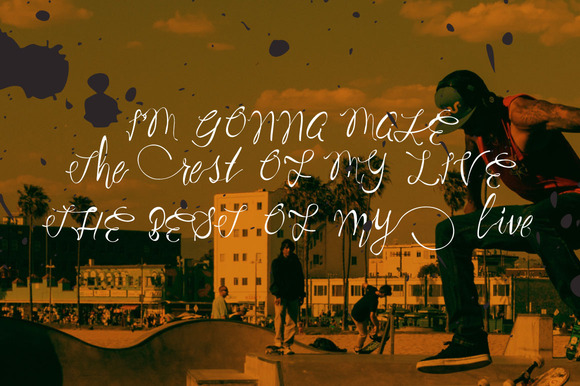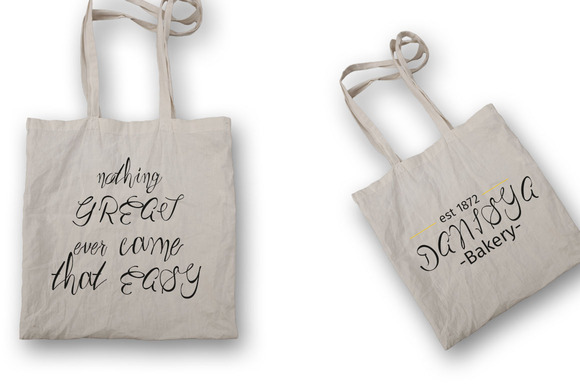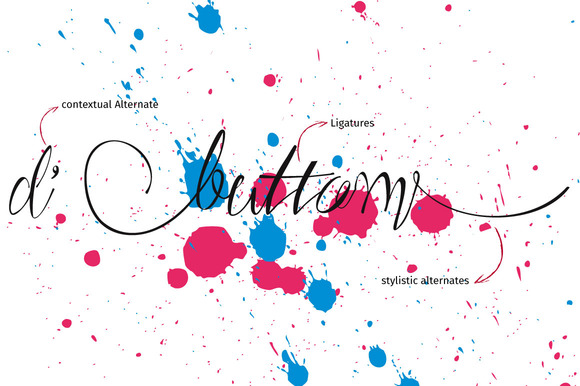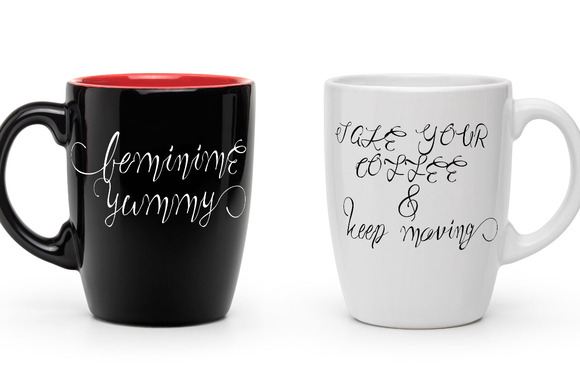
Introduction to Feminisme Font
‘Feminisme’ is a new & modern calligraphy typeface with an elegant touch.
‘Feminisme’ is a new & modern calligraphy typeface with an elegant touch. It can be used for various purposes such as headings, posters, t-shirts, logos, labels, book covers, and much more
Key Features of Feminisme Font